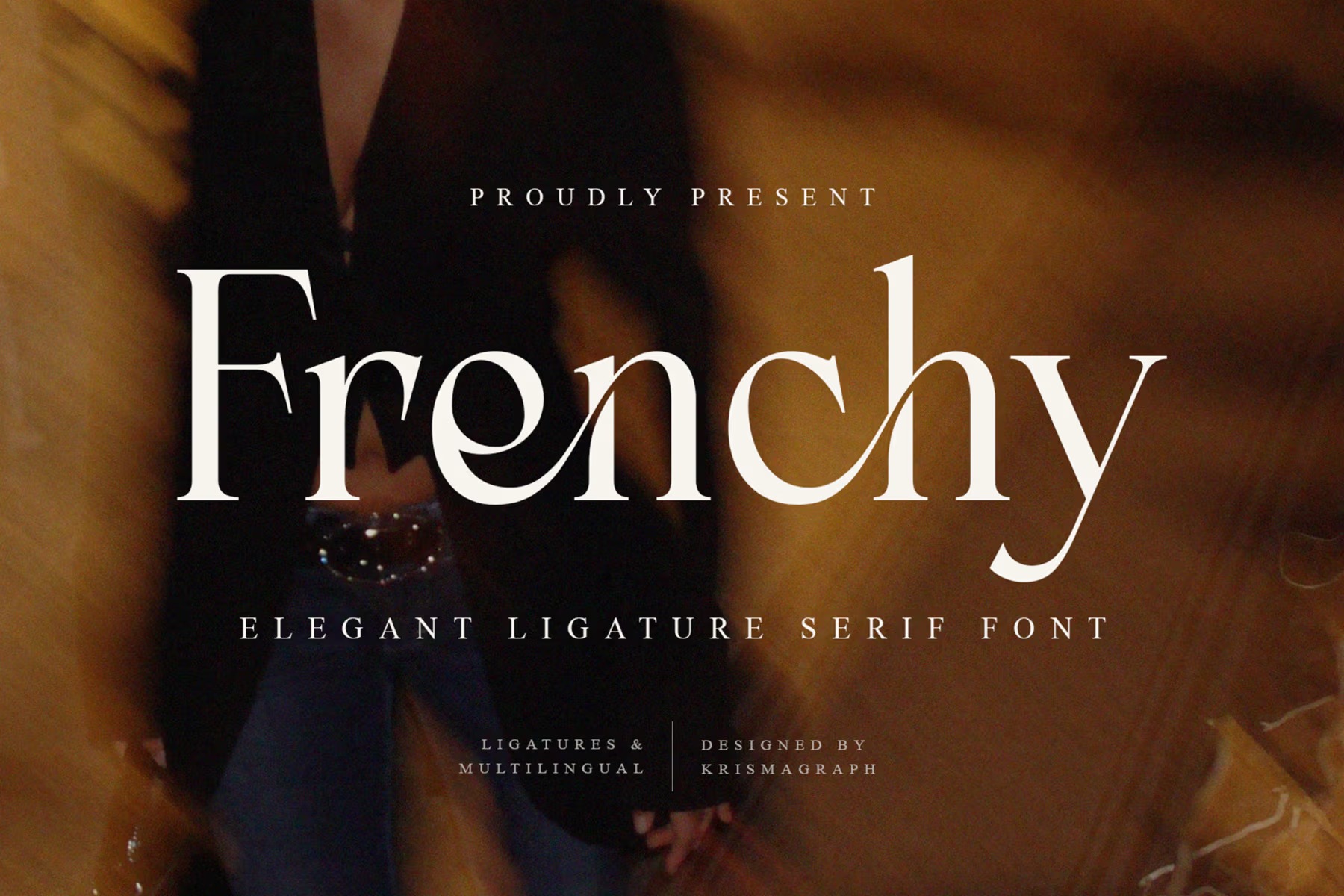
Frenchy – Elegant Ligature Serif Font
Frenchy – Elegant Ligature Serif Font is a premium-quality font developed to enhance your work with a polished, modern, and visually elevated look. Frenchy is an elegant ligature and modern serif font designed with clean proportions, refined contrast, and a timeless character. Its balanced structure and graceful details make it suitable for contemporary design needs while maintaining a classic serif foundation.
This font works beautifully for branding, editorial layouts, logo design, packaging, website headlines, posters, and premium print materials. Frenchy delivers clarity and sophistication, allowing text to stand out without feeling overly decorative.
Frenchy is ideal for designers looking for a versatile serif font that feels modern, professional, and visually confident across both digital and print applications.